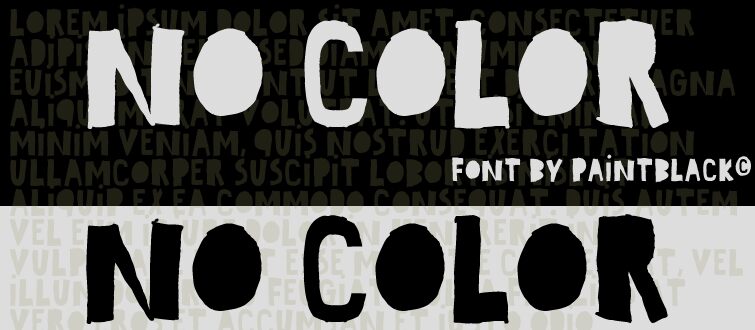
No Color by Paintblack is a free irregular caps display font with tall, crowded letters and a blunt hand-cut silhouette. Its strokes swell and pinch unpredictably, with crooked edges and uneven widths that keep the lettering raw rather than polished.
It can take the role of a hand-painted masthead in concert posters and album covers, where the dense shapes match loud, independent music graphics. Streetwear branding and event merchandise also suit its improvised construction and forceful all-caps voice. On food packaging or comic covers, the lopsided forms can become part of an illustrated label rather than a neutral line of type.